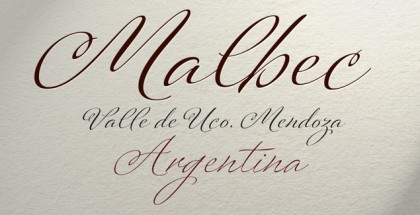
Monmica font family
Monmica font family by Aga Silva (designer of the graceful Calissa Pro) is a hot new set of three multilingual, handwritten stylish copperplate calligraphy fonts. Included in the Monmica font family are three font variations – Monmica Basic font, Monmica Fancy font, and Monmica font containing 1118, 1229 and 2018 glyphs, respectively. There is a great variety of OpenType features: fancy swashes, alternates, ligatures, contextual alternates, capital spacing, old style figures, fractions, and many others. The Monmica font family provides glyph coverage for Basic Latin/English letters, West European diacritics, Central European, Baltic, Turkish, Romanian, and Vietnamese languages.